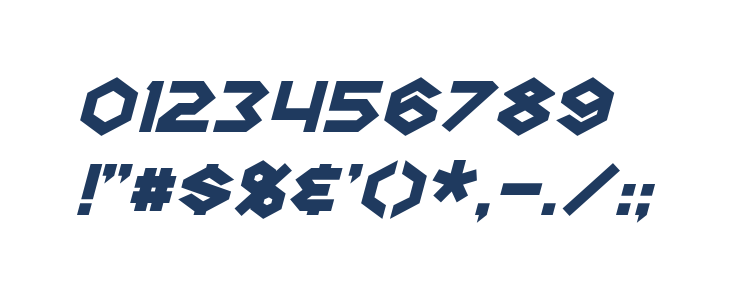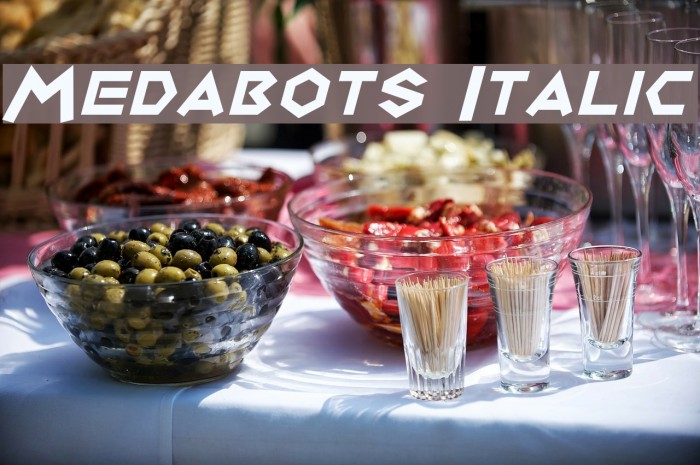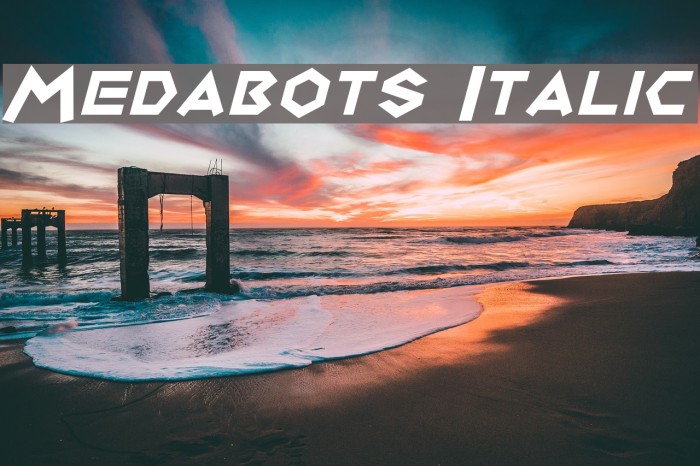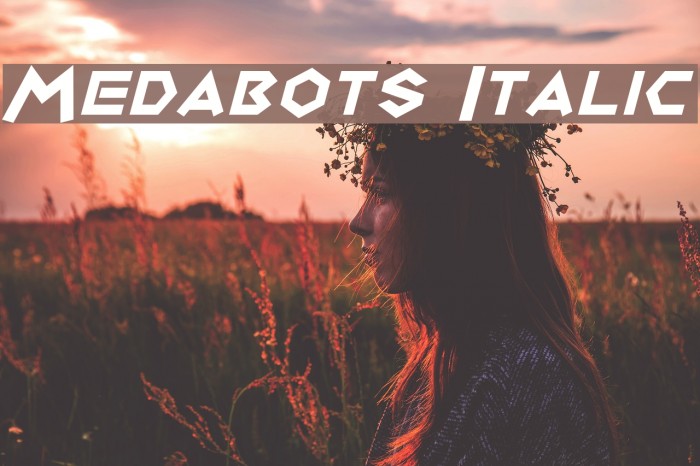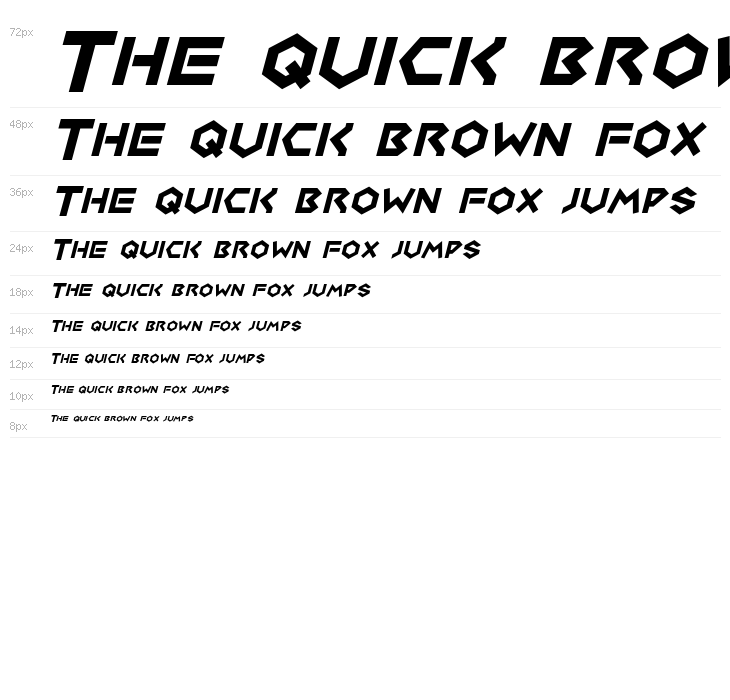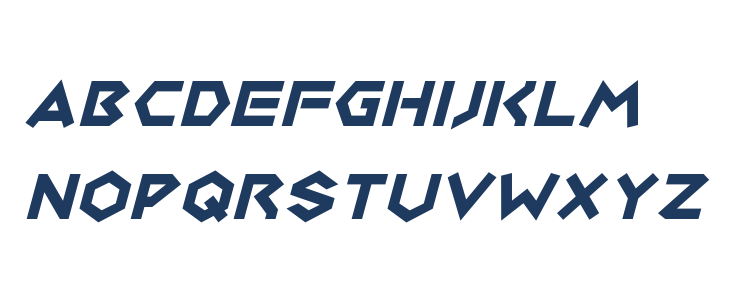
Medabots Italic Font
Medabots Italic Description
This font features a bold and angular design, characterized by sharp edges and a futuristic aesthetic. The letters are slanted, giving an italicized appearance that adds a dynamic and energetic feel. The geometric shapes and clean lines create a sense of modernity and innovation. The numbers and special characters maintain the same angular style, ensuring consistency across all elements. This font is visually striking and commands attention, making it ideal for projects that require a bold statement.
| Proposed Projects | Perfect for video game titles, tech branding, sci-fi posters, and modern advertising campaigns. |